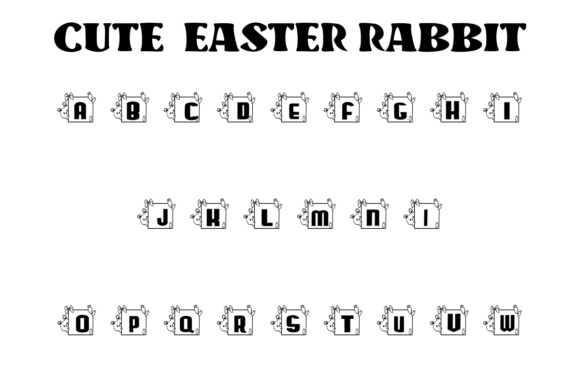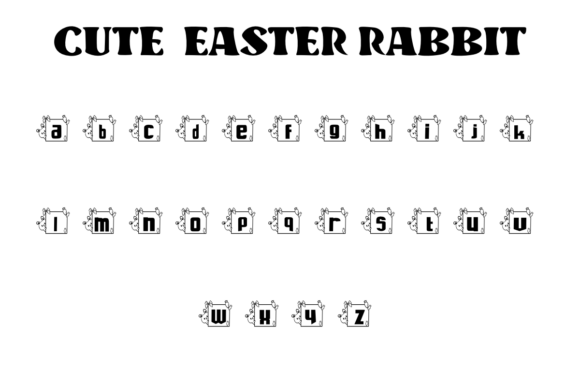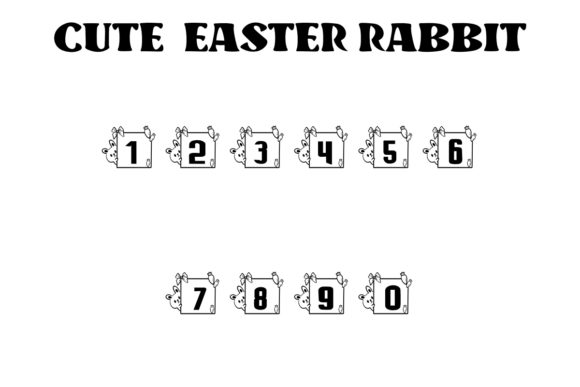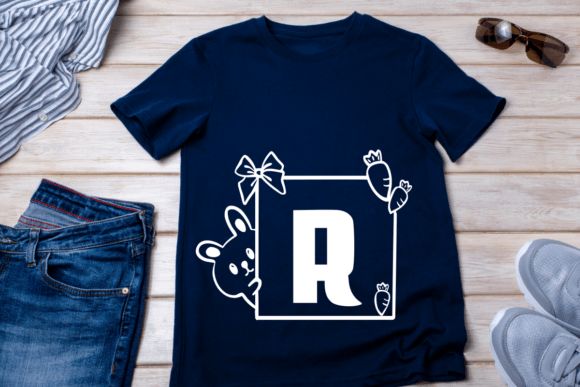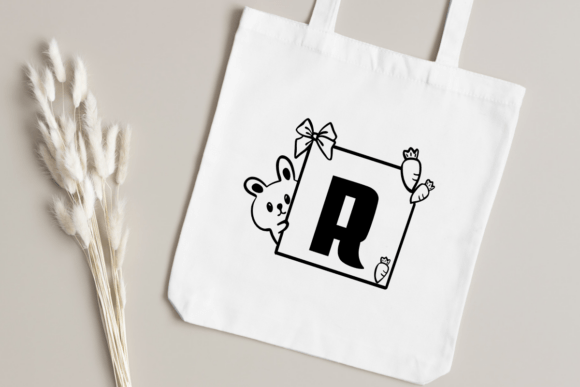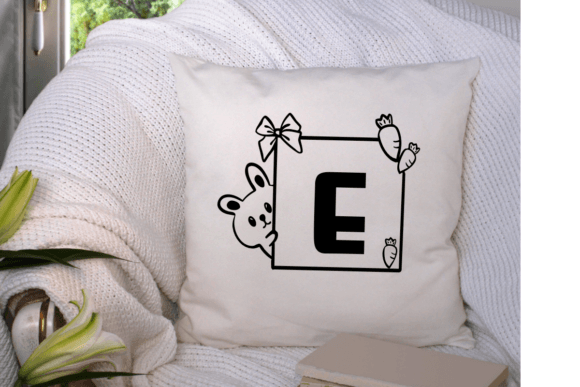
Introduction to Cute Easter Rabbit Font
Cute Easter Rabbit is a decorative font.
You can use it for taking notes, writing a diary, or making greeting cards However, you can still use it for other designs, such as banners, content, mugs, cards, shirts, stationery, social media posts, and more.
Key Features of Cute Easter Rabbit Font